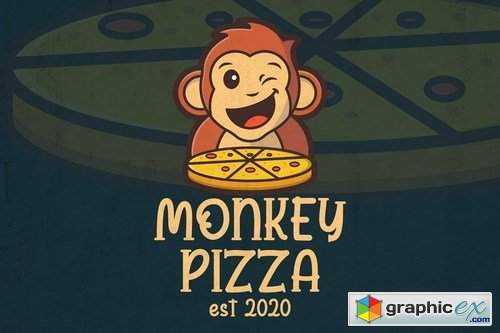
King Gorilla
King Gorilla is a cute and unique font. King Gorilla Fonts will offer a fun look for various design projects such as logos & branding, book covers, kids t-shirts, social media posts, advertising & product design, and more.